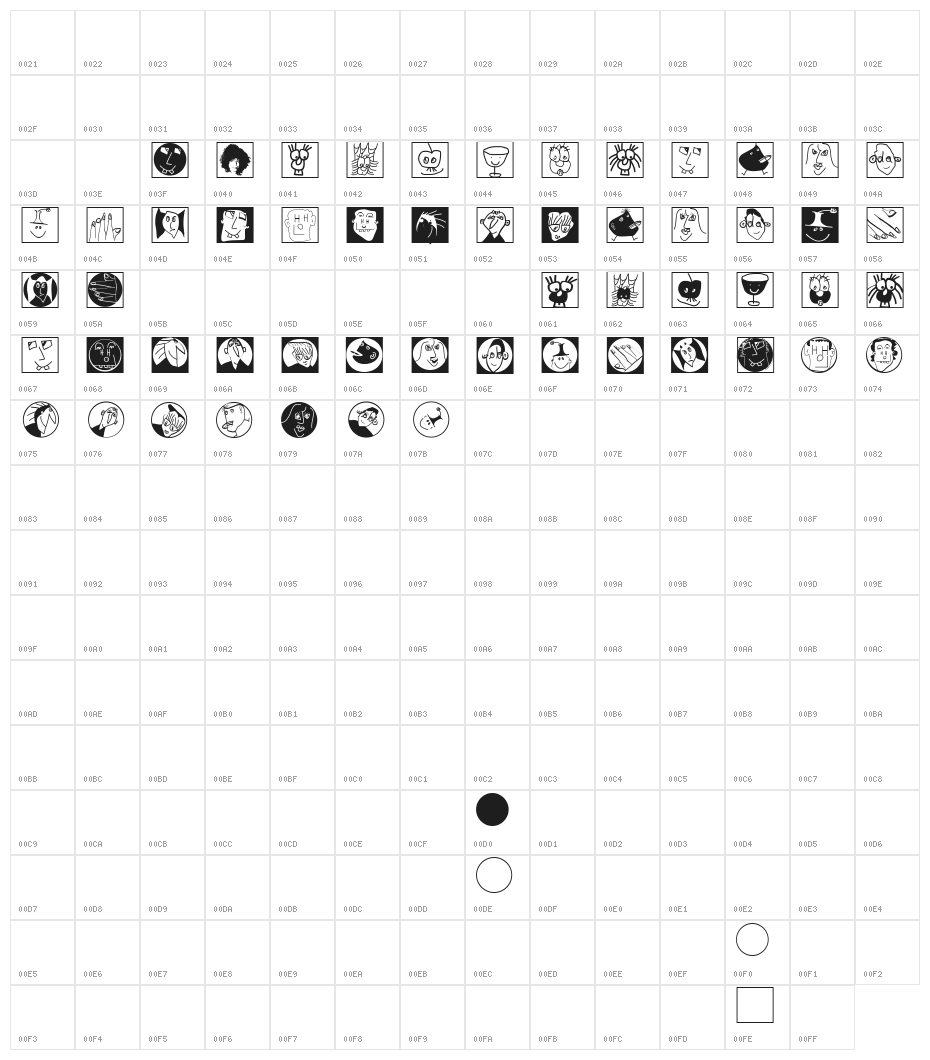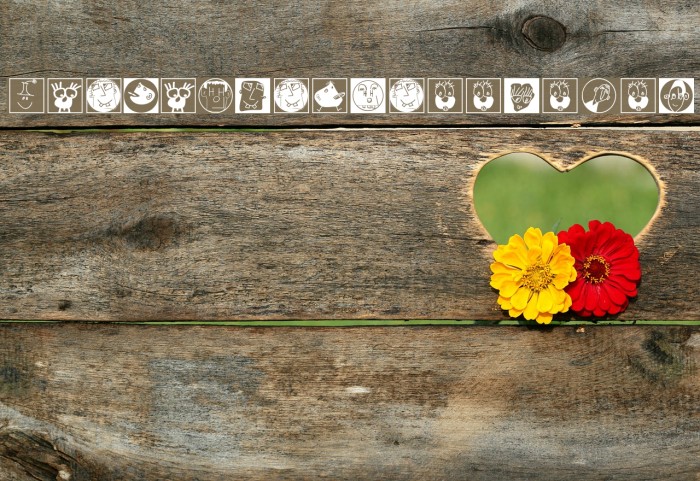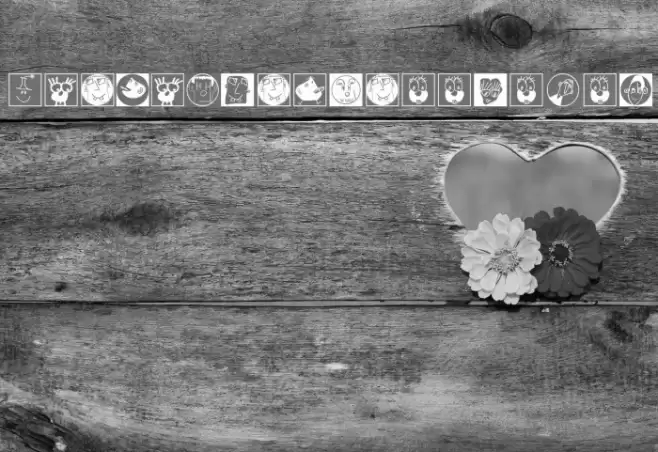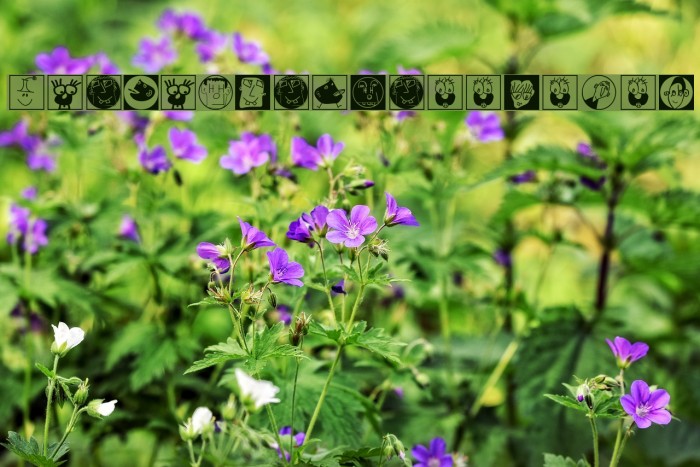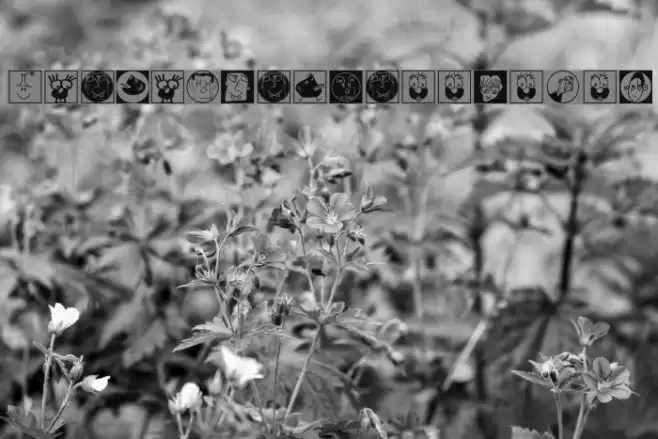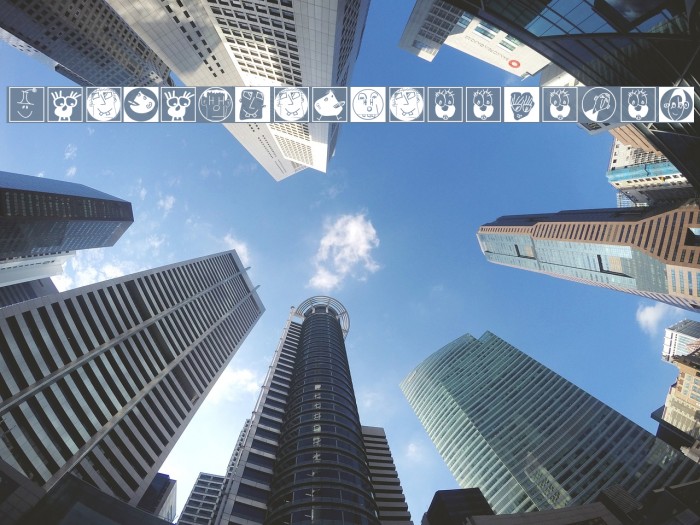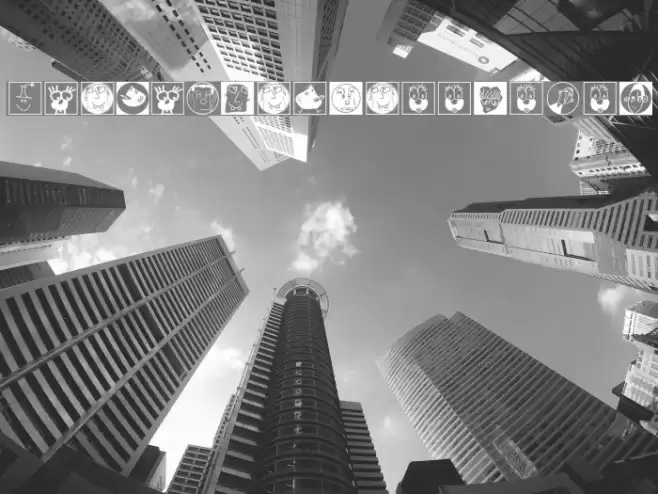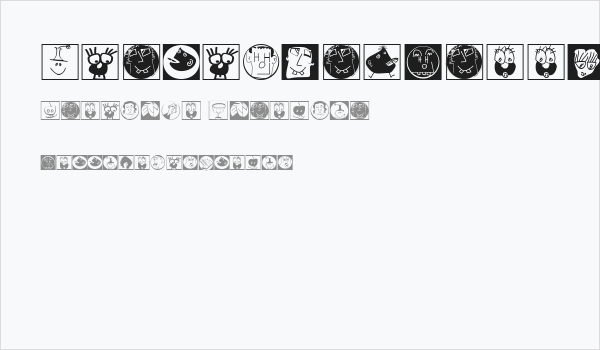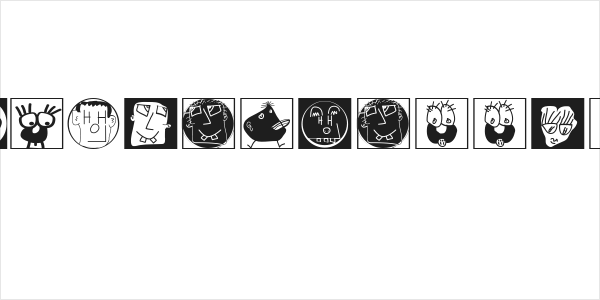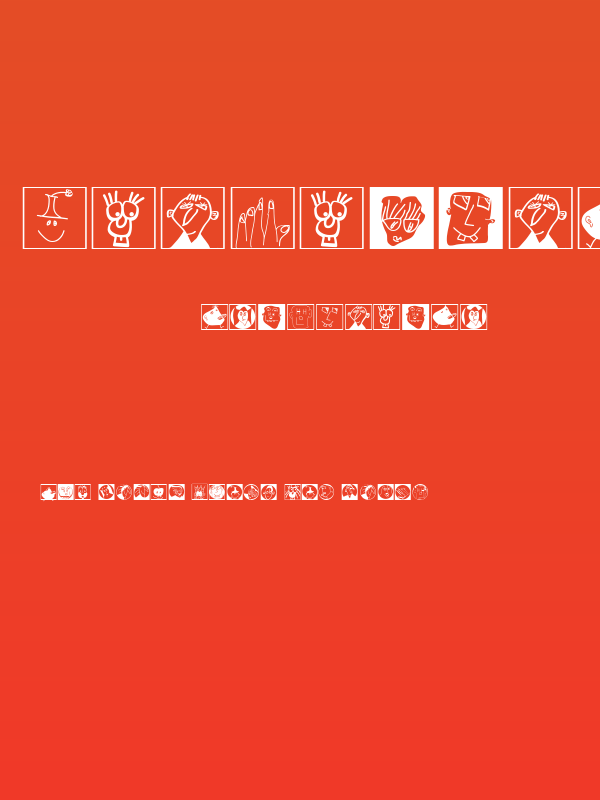
KarlasNrThreeSeven Font
KarlasNrThreeSeven Description
A decorative dingbat font featuring abstract, whimsical line-drawn faces and objects inside square and circular frames, alternating between black and white backgrounds for high visual contrast.
| Overall Style | Decorative, Whimsical, Abstract |
| Use Case | Icons, Decorative elements, Logos, Posters |
| Proposed Projects | ChildrenΓ’β¬β’s books, playful branding, greeting cards, posters, creative packaging, art projects. |